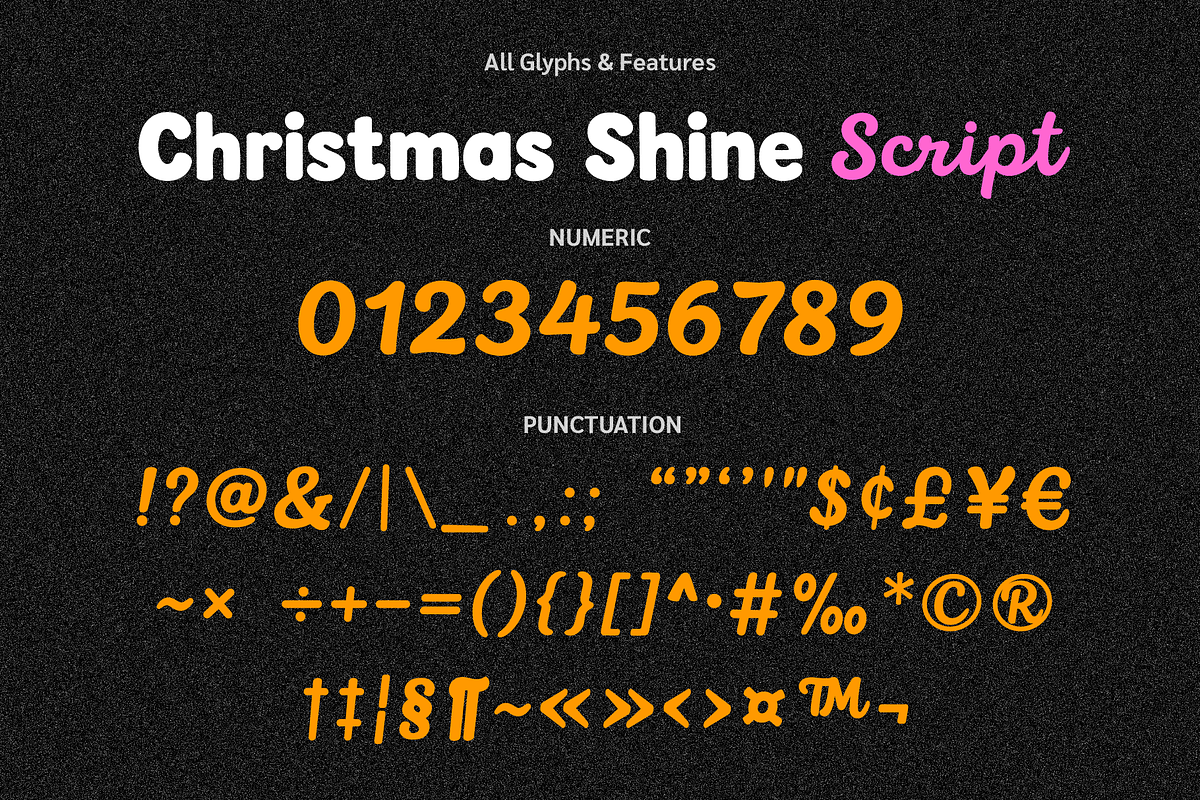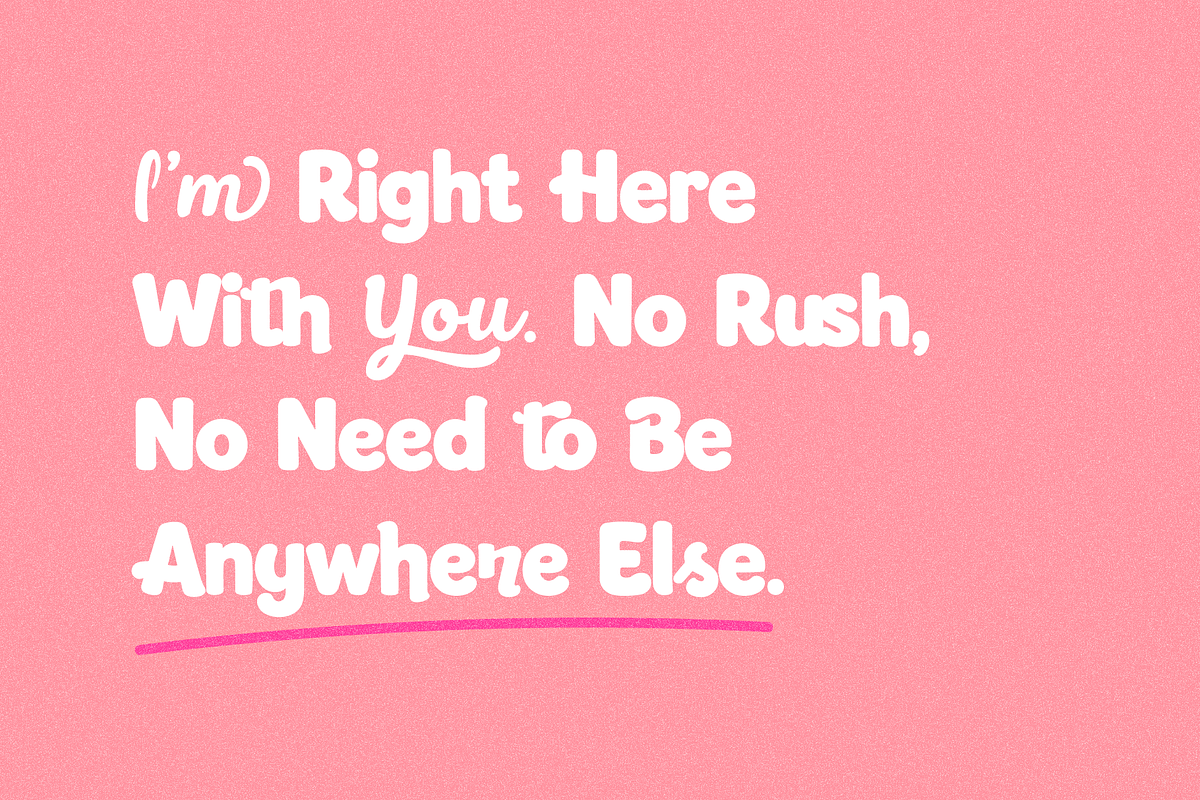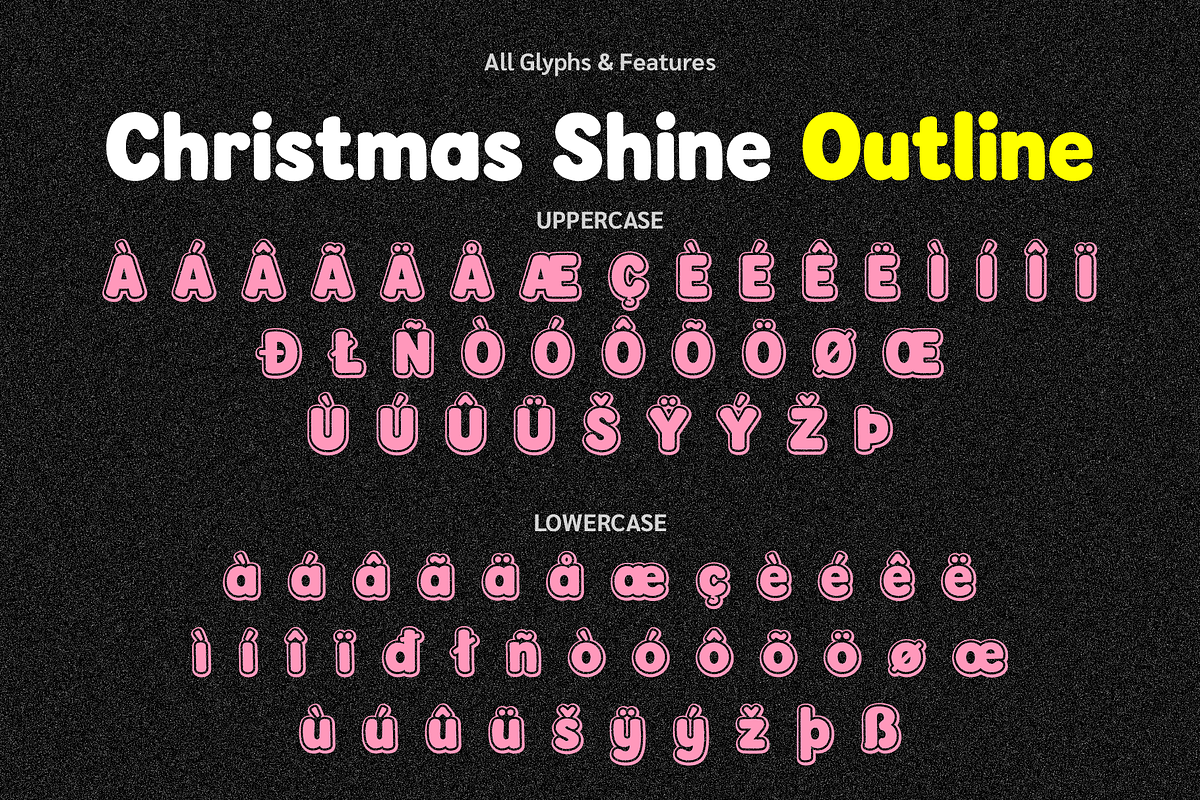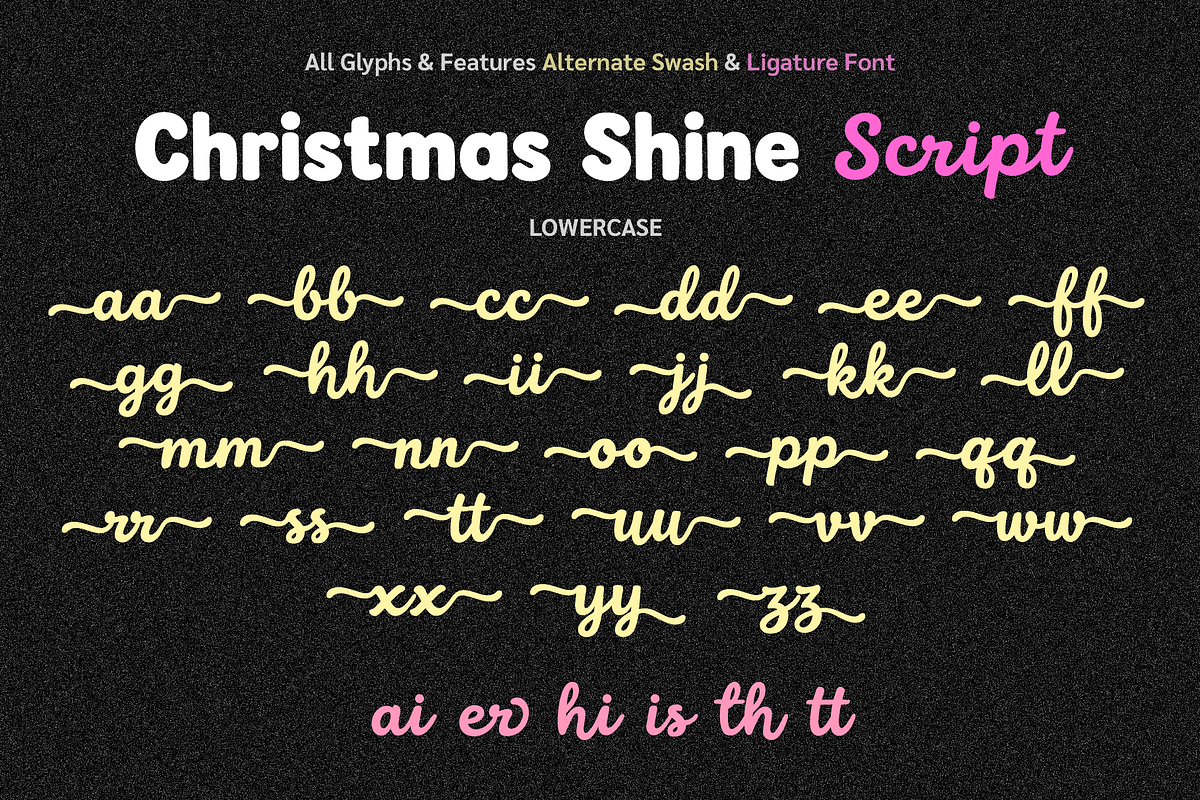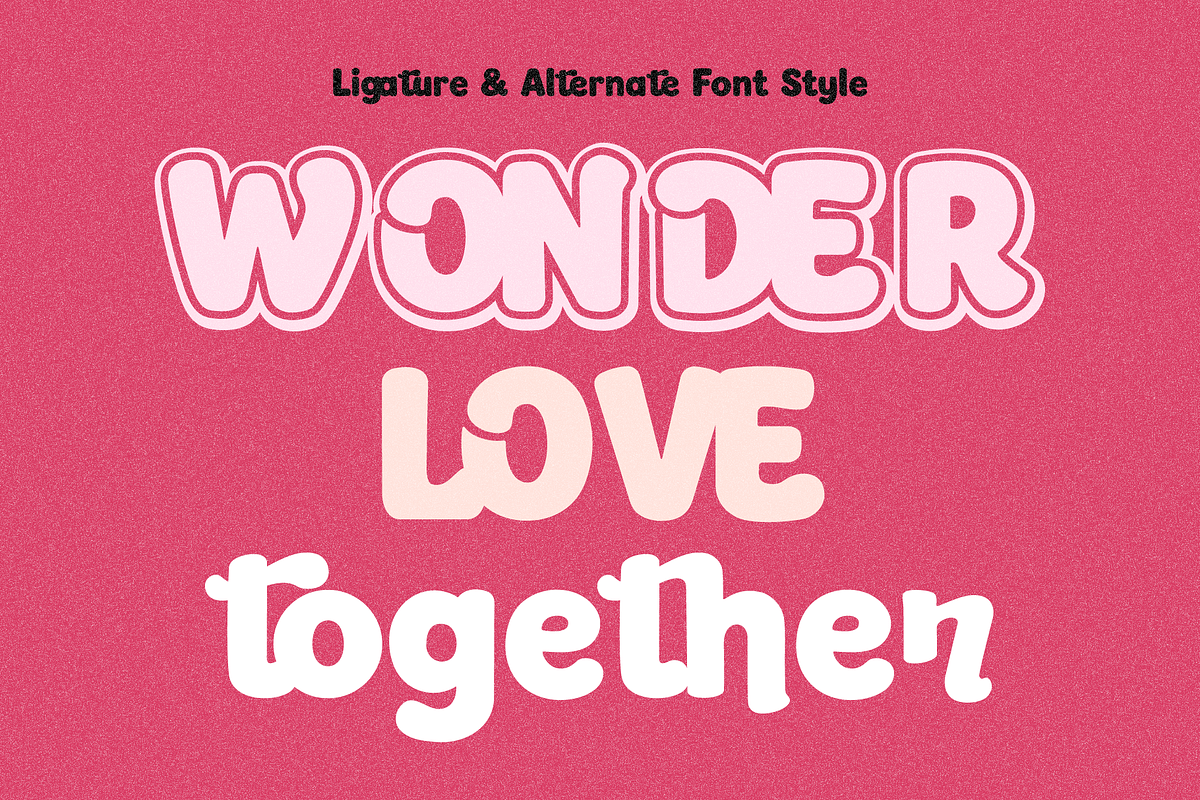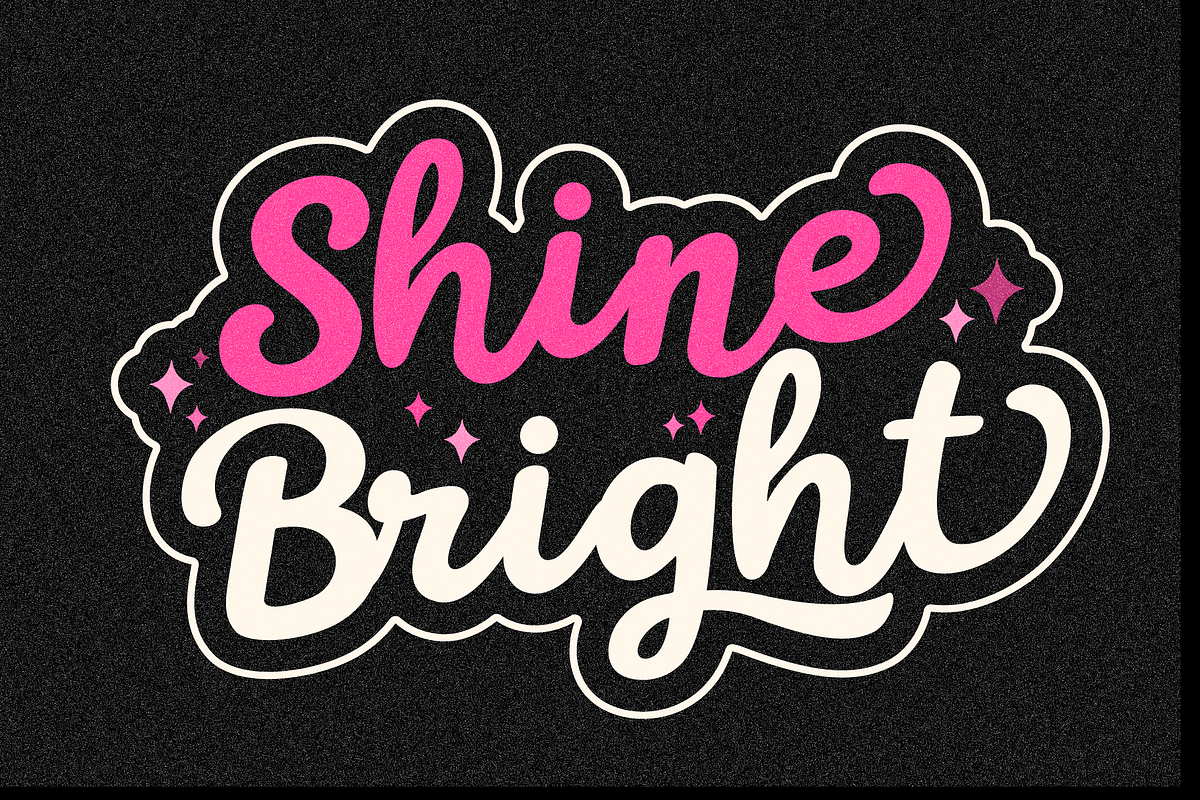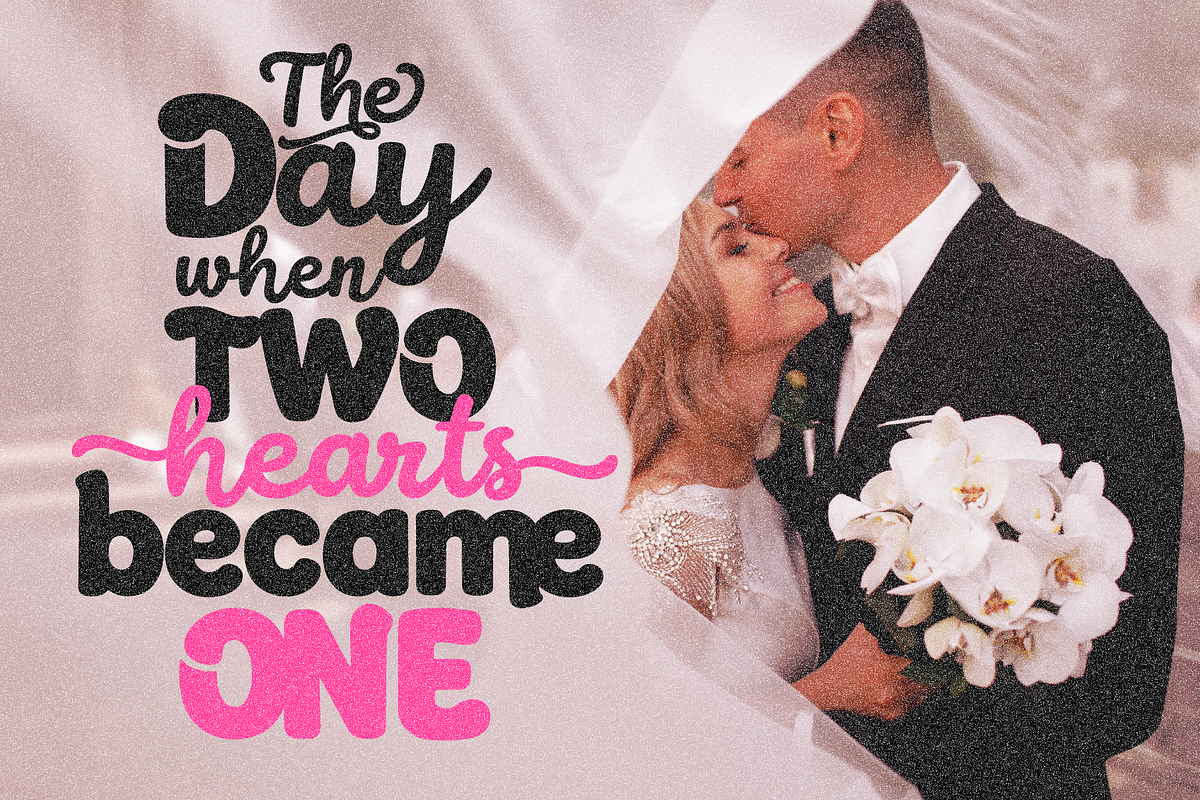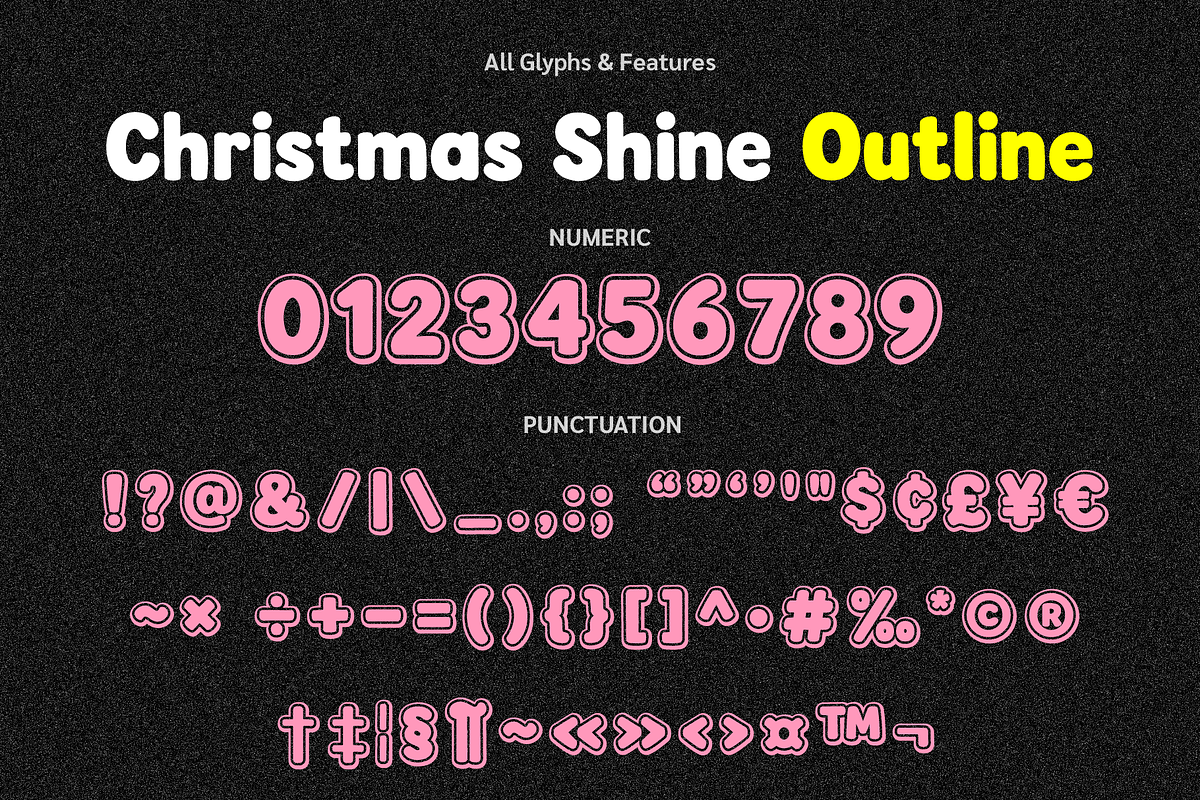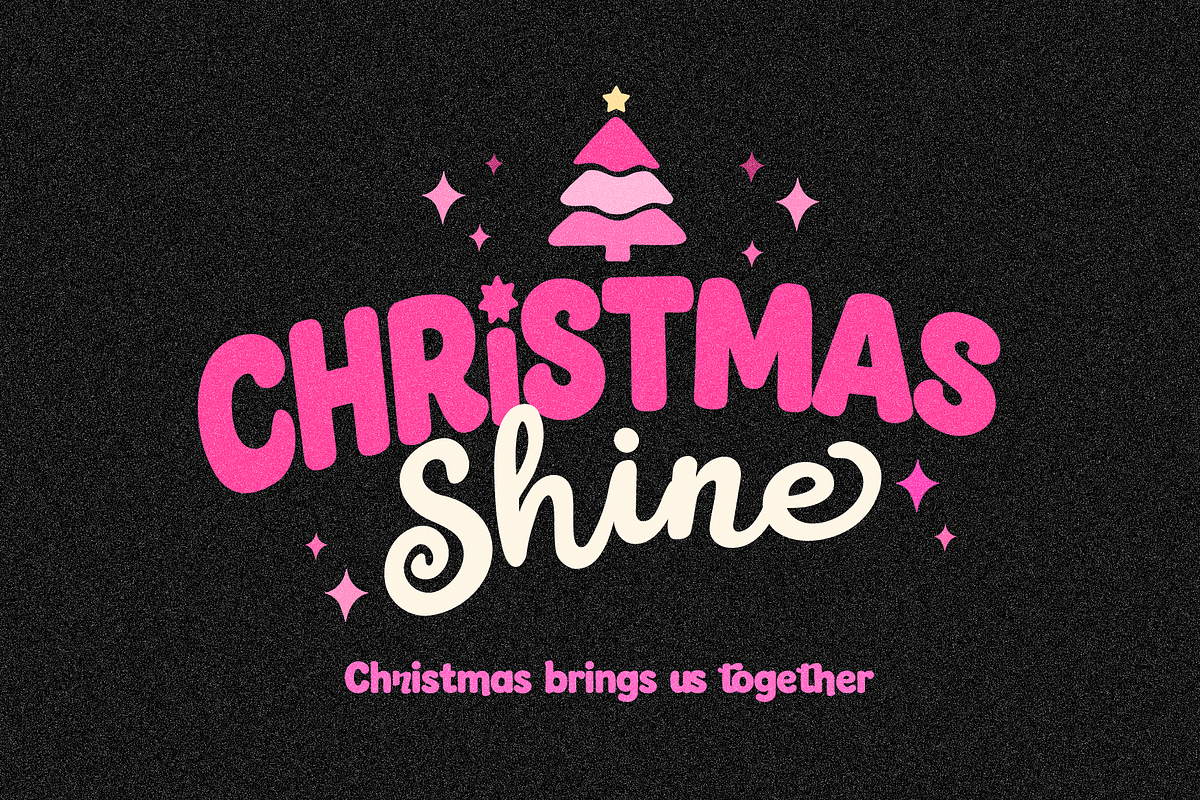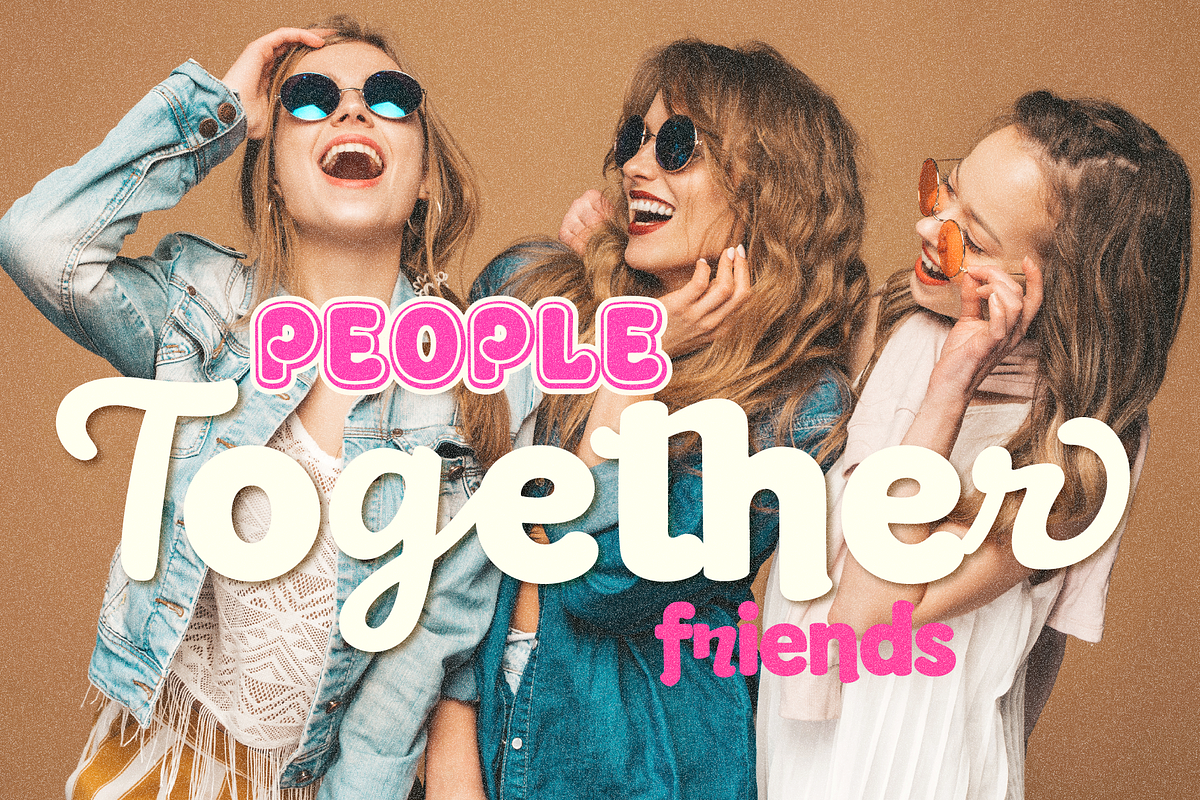
Christmas Shine
🎄 CHRISTMAS SHINE
3-Style Christmas Font Collection
Christmas Shine is a playful Christmas font collection designed to bring bold personality, handmade warmth, and festive charm to your holiday projects.
This collection includes 3 complementary font styles — Regular, Outline, and Script — designed to work beautifully on their own or together as a complete Christmas lettering system.
The Regular style brings a bold, rounded and playful look, perfect for eye-catching Christmas headlines and festive designs.
The Outline style adds a decorative layer that works beautifully for stickers, signs, apparel, crafts, labels, and holiday lettering.
The Script style brings a softer, natural handwritten touch — perfect for Christmas cards, gift tags, notes, journals, scrapbook projects, and personal messages.
Christmas Shine also includes Ligatures and Alternate characters to give your lettering more personality and create unique combinations.
✨ Perfect for:
Christmas & Holiday Designs
Greeting Cards
Christmas Invitations
Gift Tags
Stickers
Scrapbooking
Journaling
T-Shirts & Apparel
Cricut & Craft Projects
Posters & Signs
Packaging & Labels
DIY Holiday Projects
Digital & Printable Designs